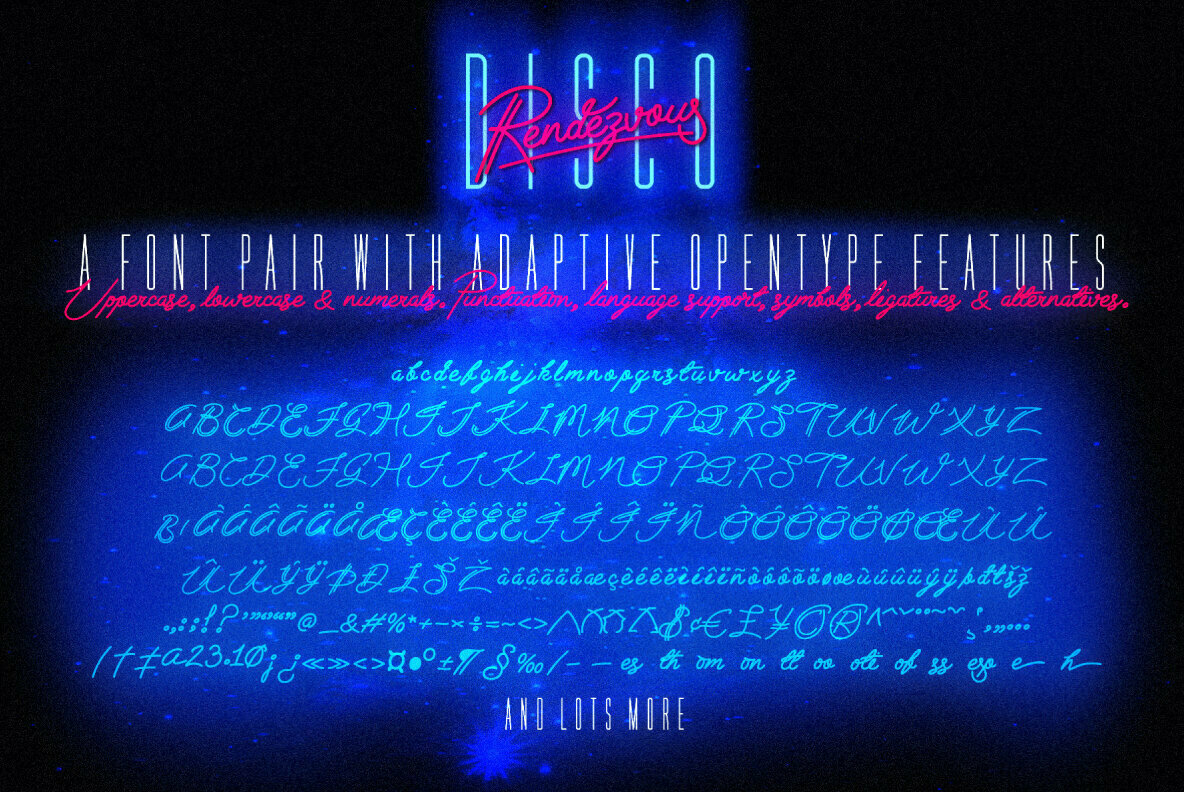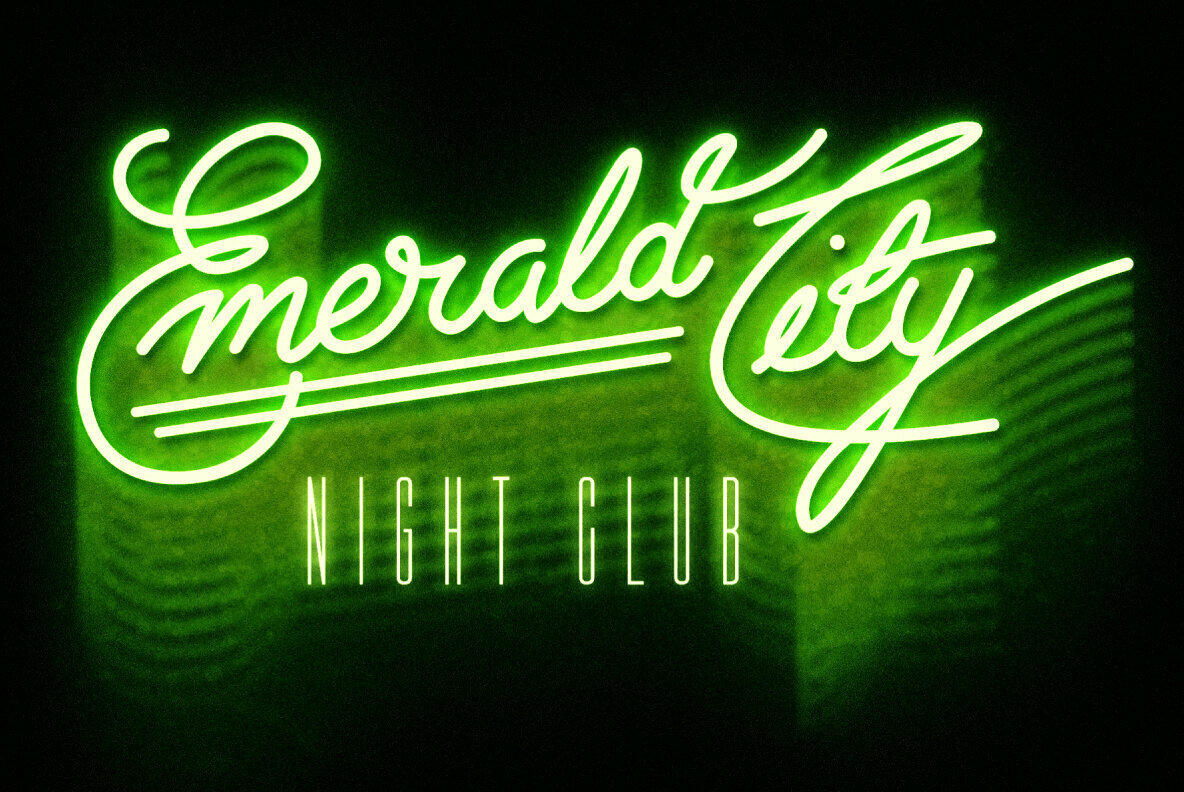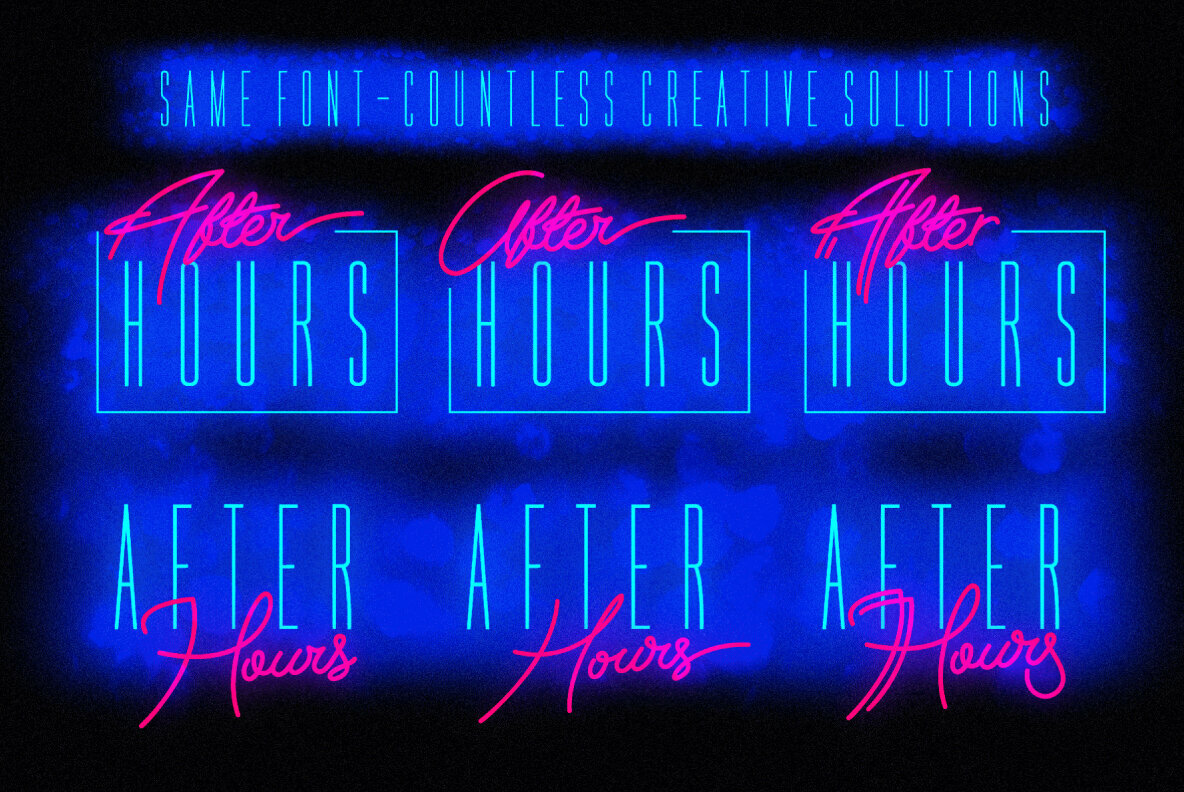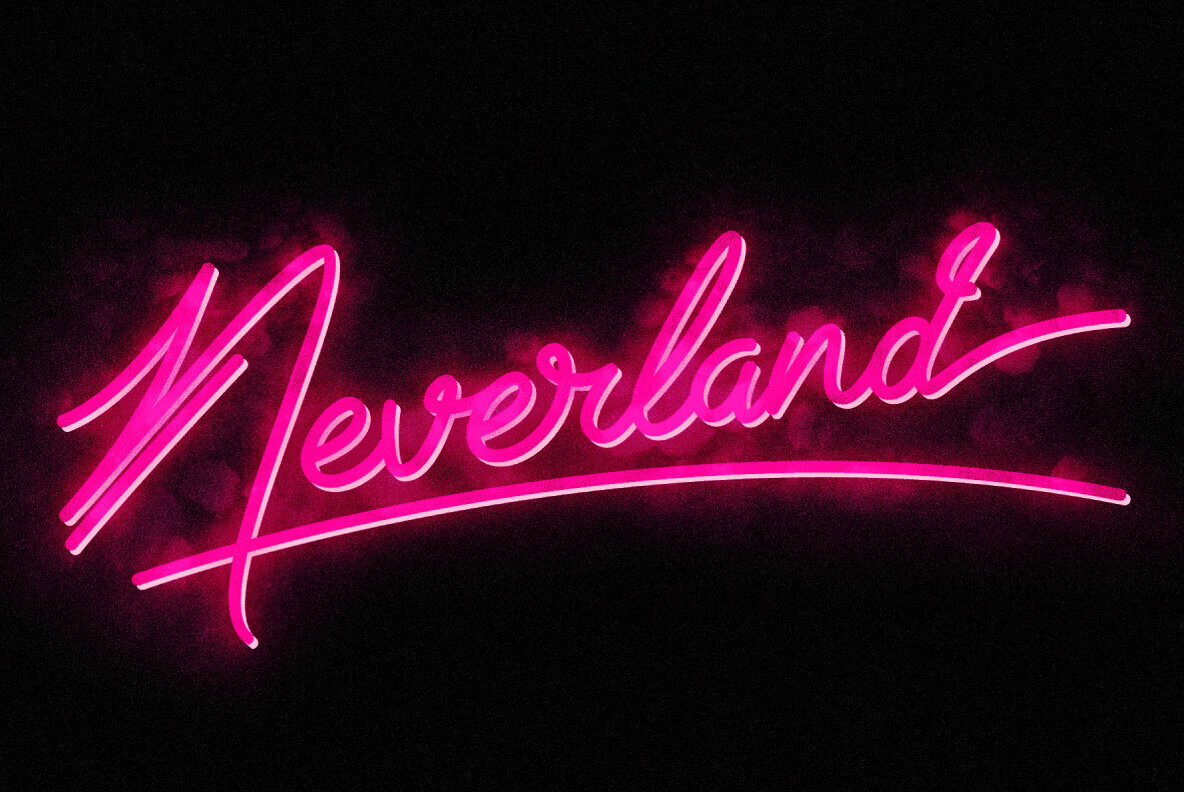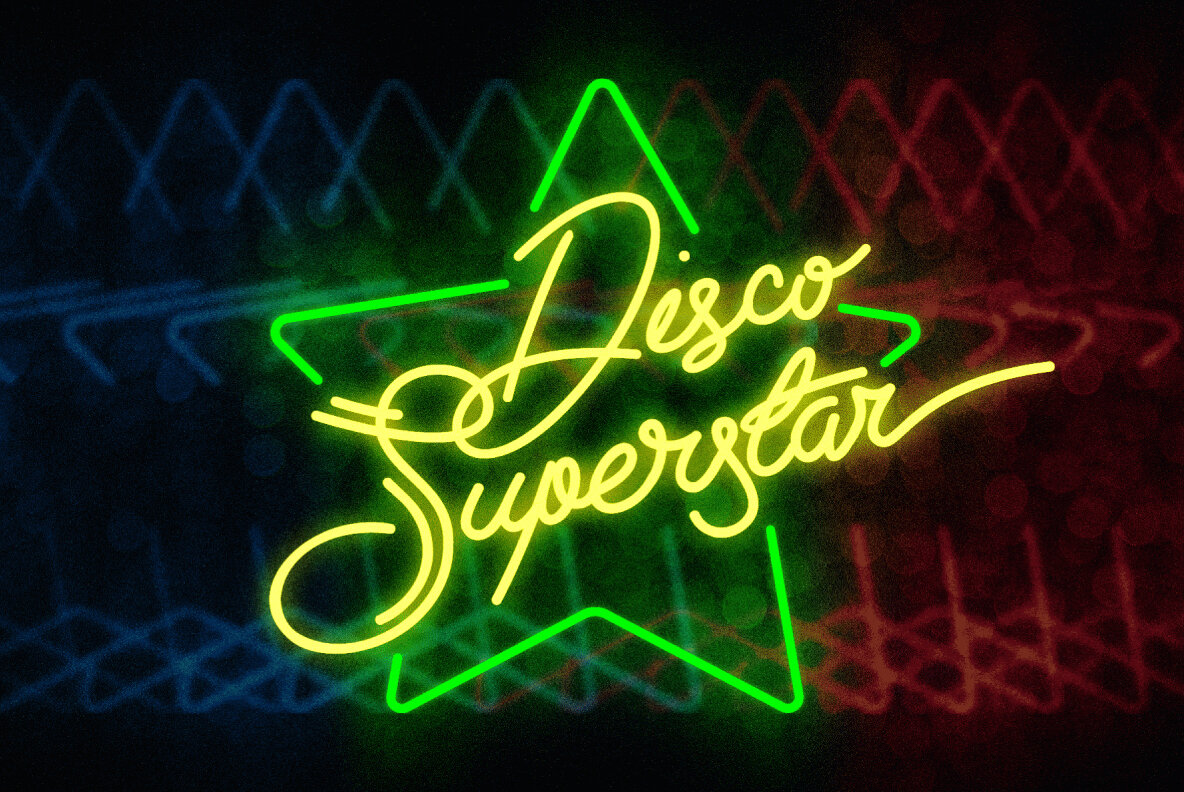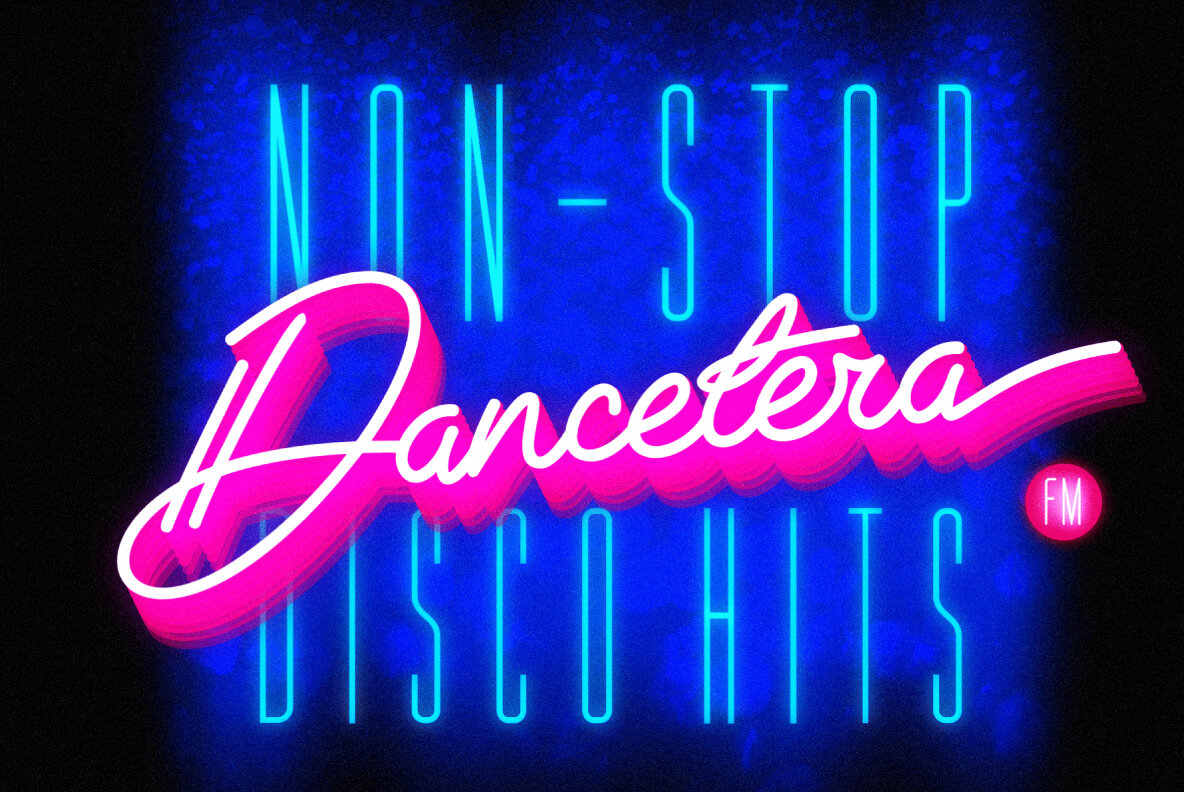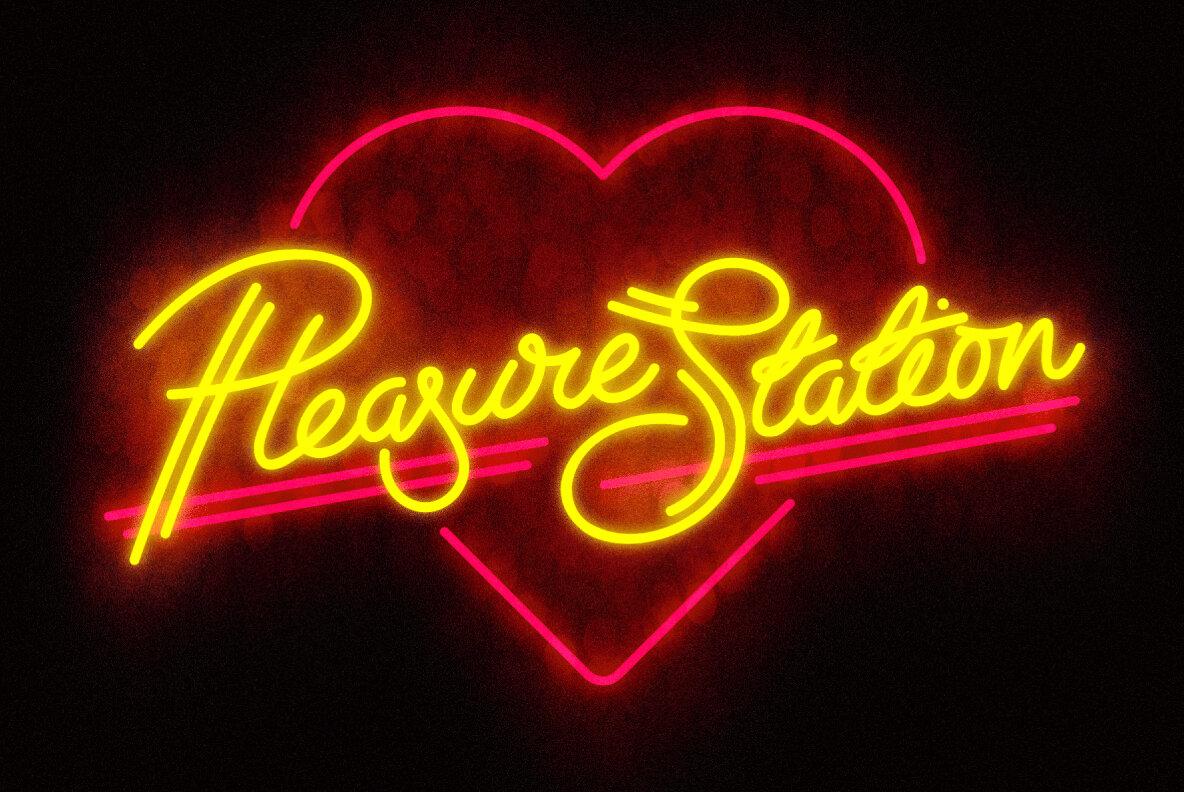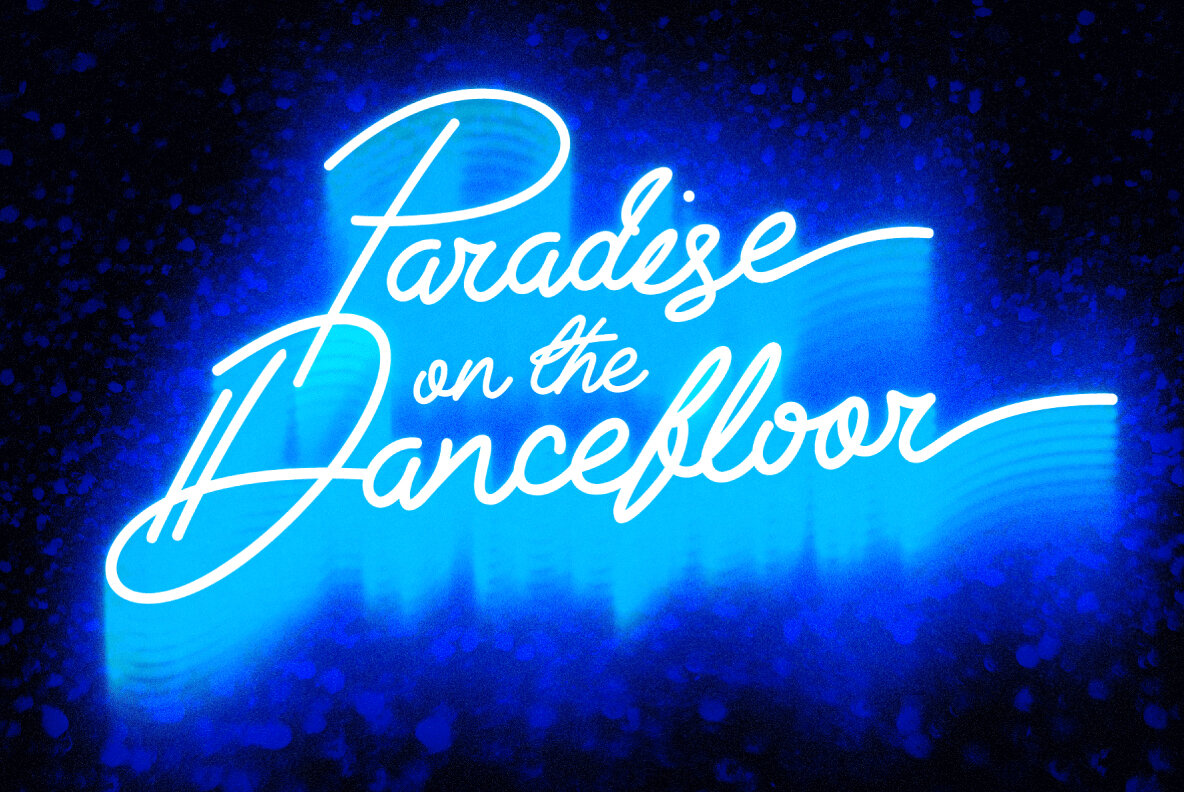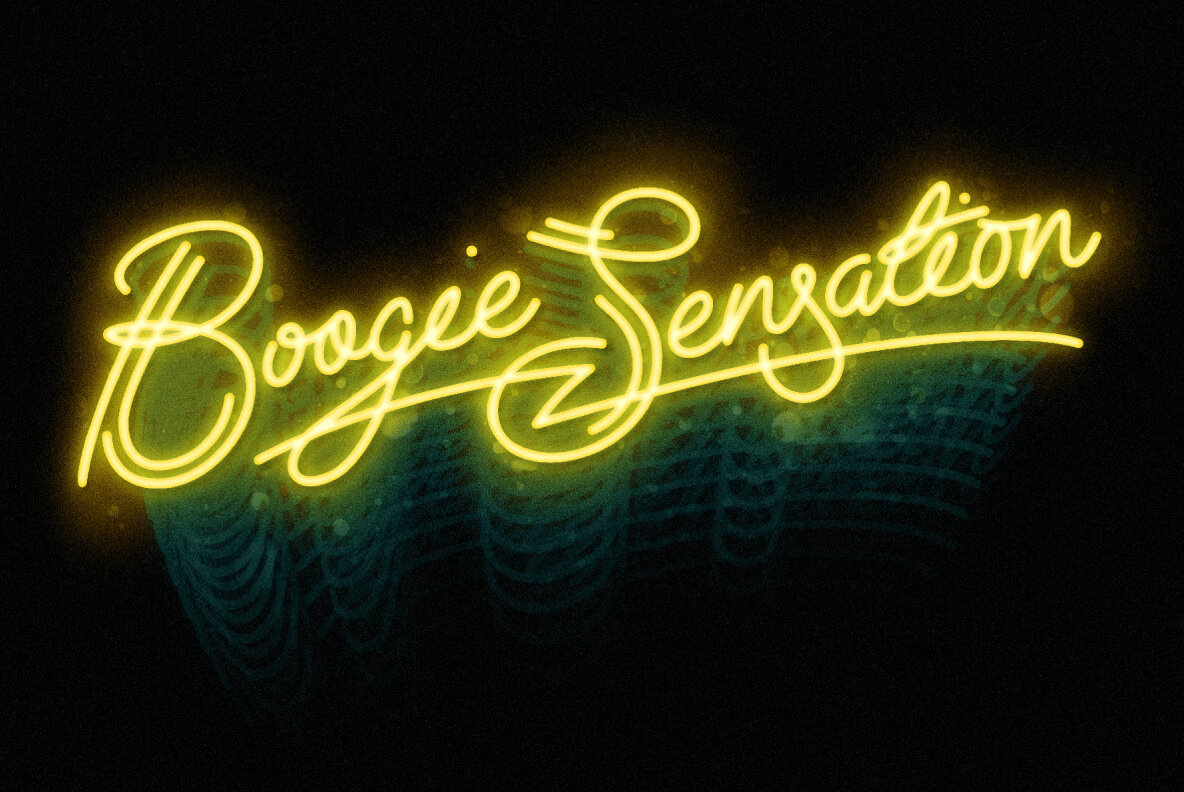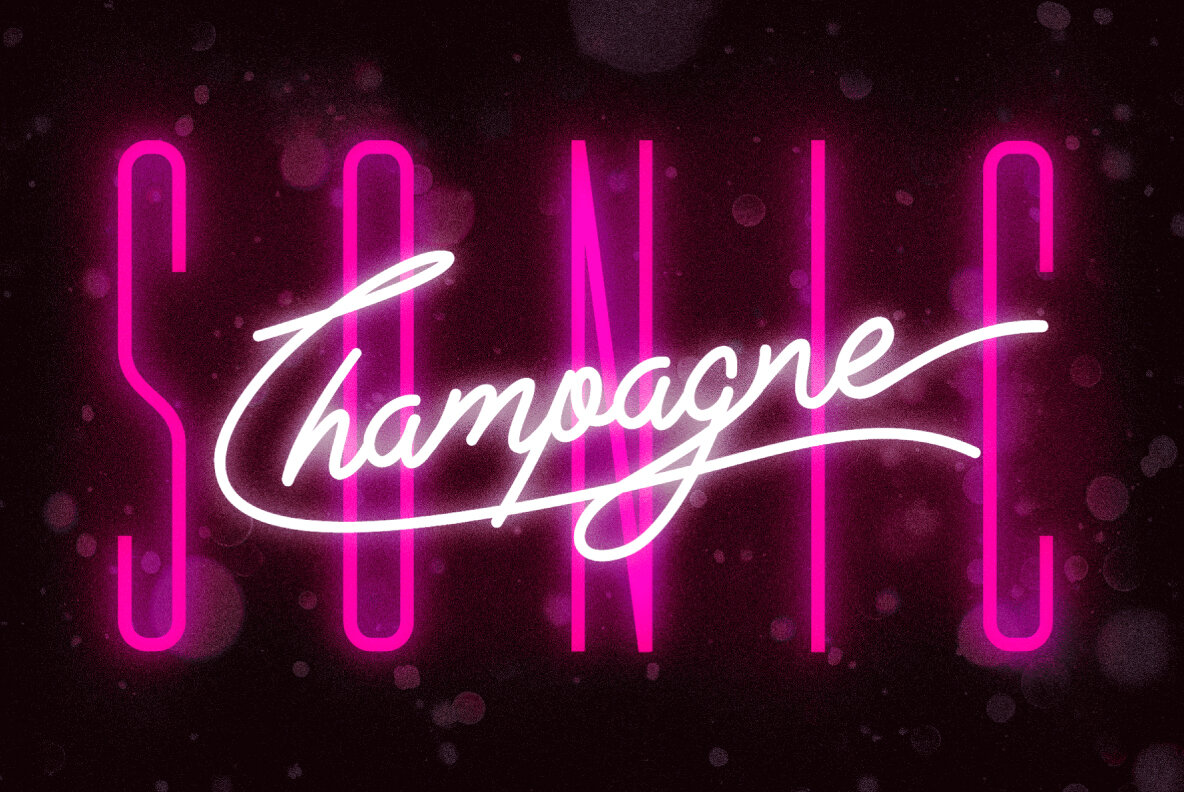
Disco Rendezvous Font
Disco Rendezvous: An Adaptive Font Pair Inspired by Neon Soaked Club Culture
Combining an elegant script and a tall sans serif font, Disco Rendezvous is a perfectly contrasted design that evokes the golden-age of disco, inspired by neon soaked night clubs and epic dance floor hits.
The superstar of this show is the highly customisable script that takes full advantage of OpenType features to offer countless creative options via alternative characters and automatic ligatures, giving your headers and title designs an authentically hand-made look.
It features a complete set of uppercase and lowercase characters, along with numerals, punctuation and language support, and used with the included Sans Serif font pair you have a perfectly matched type treatment.
Based near Bristol, UK, Christopher King is the designer behind Wingsart Studio, a creative practice specializing in hand-drawn lettering and bespoke typography for film and television. Acting as both a working portfolio and an independent font foundry, Wingsart Studio showcases King’s deep appreciation for mi...